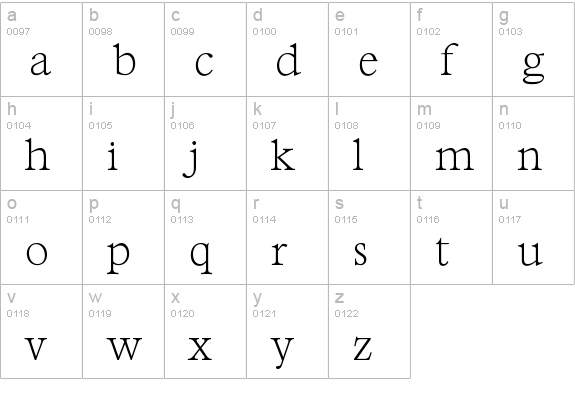
Bernstein-Xlight is a sleek and modern font that exudes elegance and sophistication. With its delicate serifs and clean lines, this typeface is perfect for creating a polished and refined look in any design project. The subtle contrast between thick and thin strokes adds a touch of sophistication, making Bernstein-Xlight a versatile choice for both headings and body text. This font is available for free download at FontsMarket.com, where designers can easily access this beautiful typeface to elevate their projects. Whether you're working on a branding project, website design, or any other creative endeavor, Bernstein-Xlight is sure to bring a touch of style and class to your work. Download this font today and add a touch of elegance to your designs.